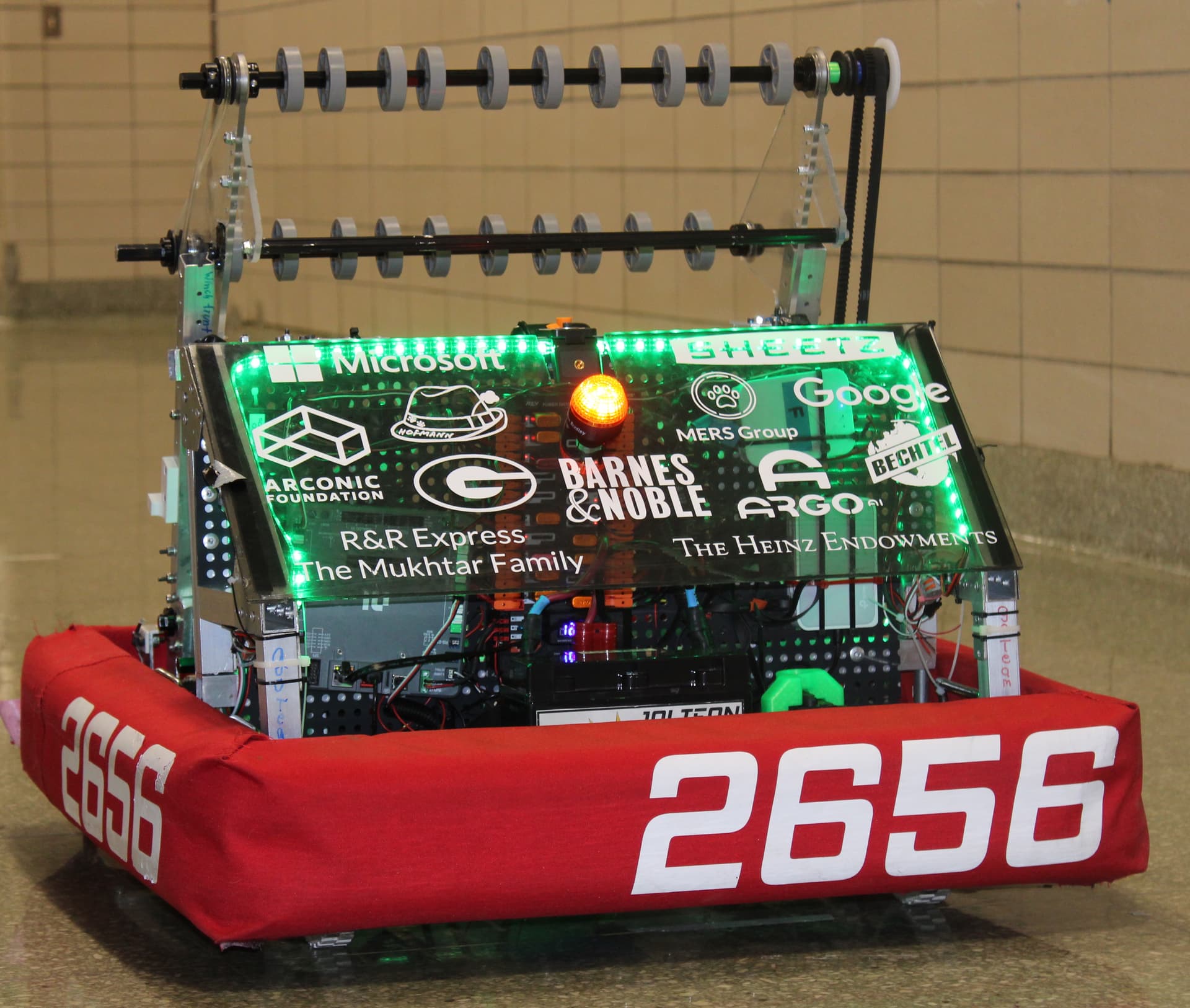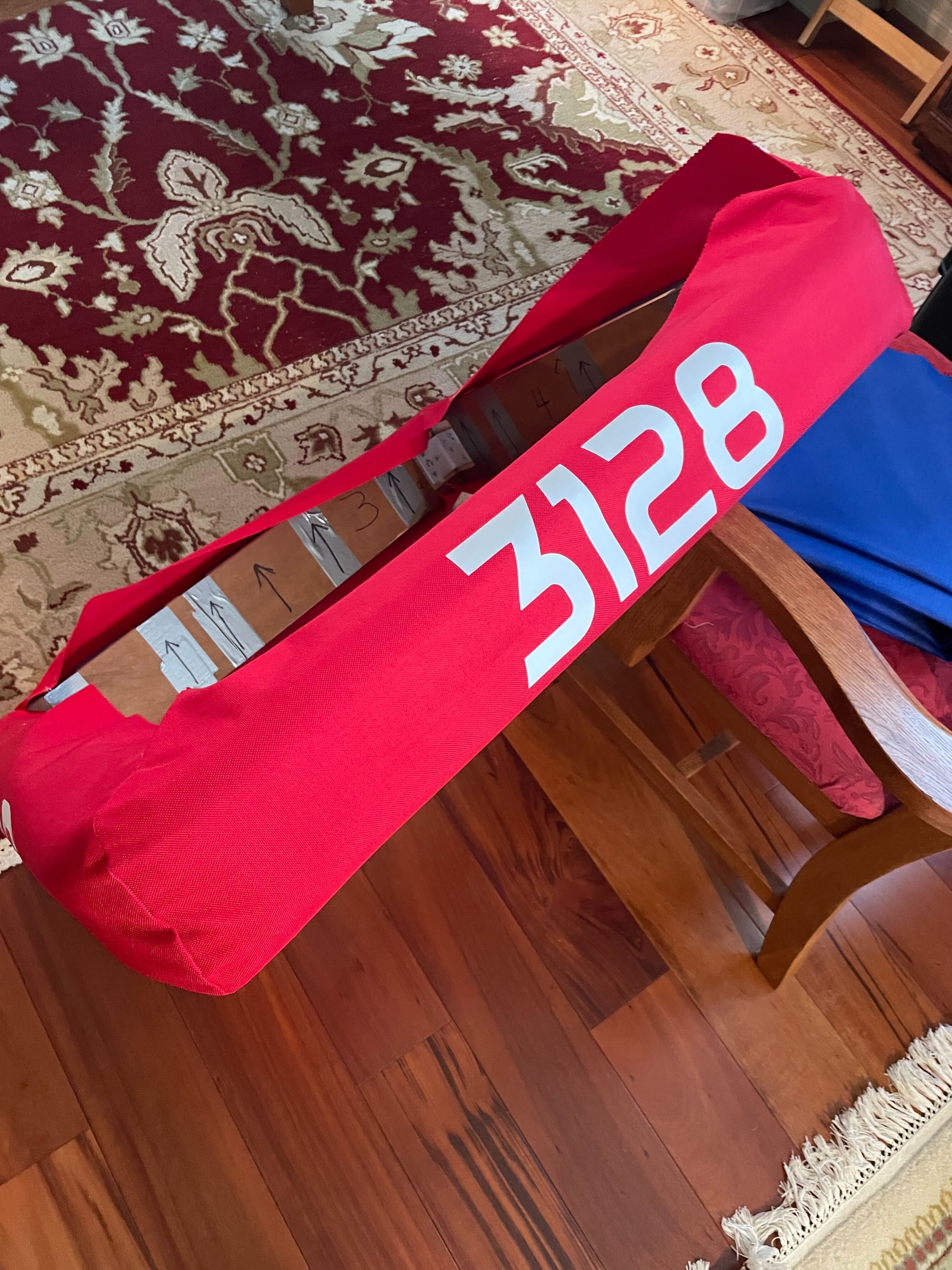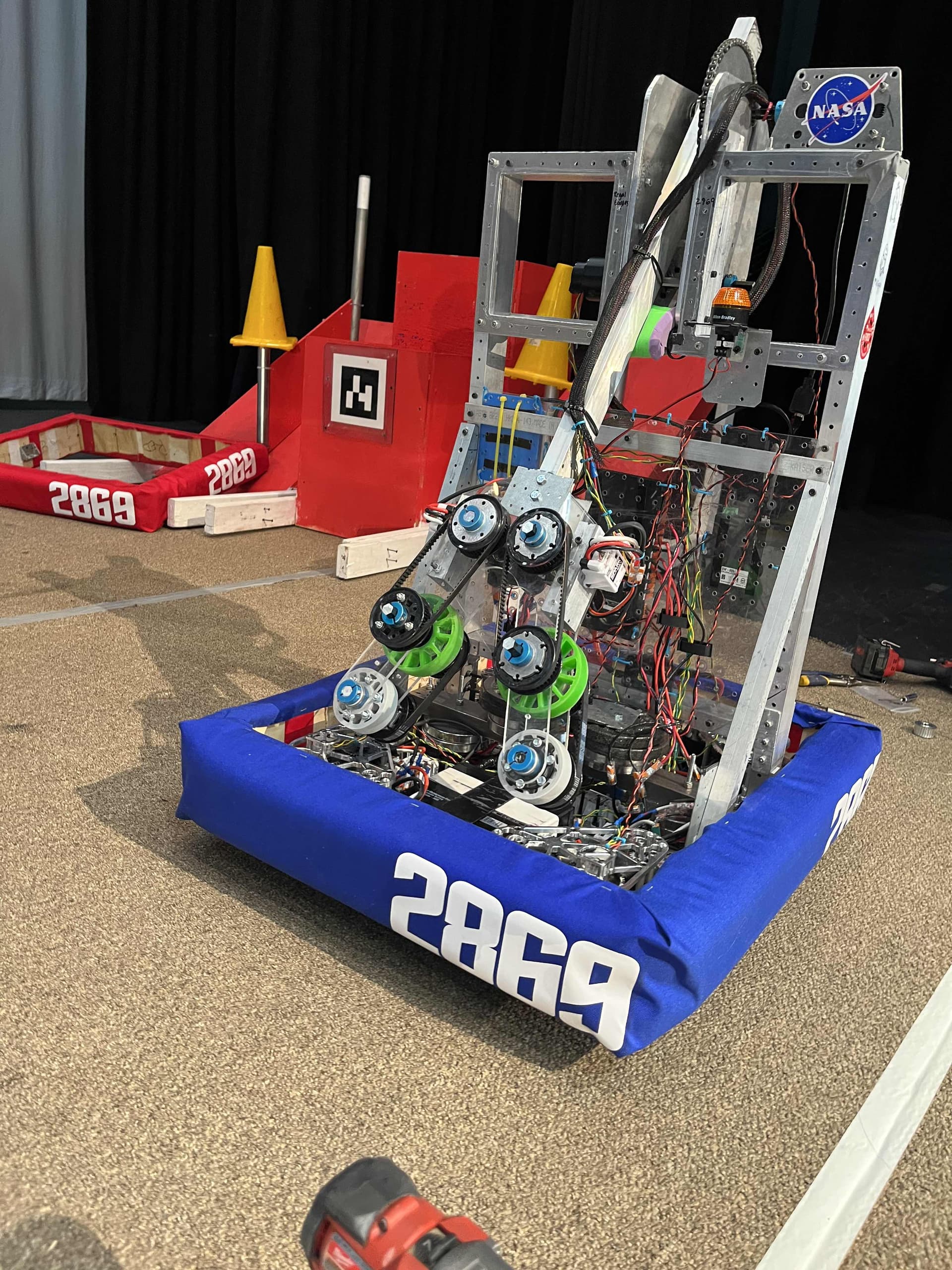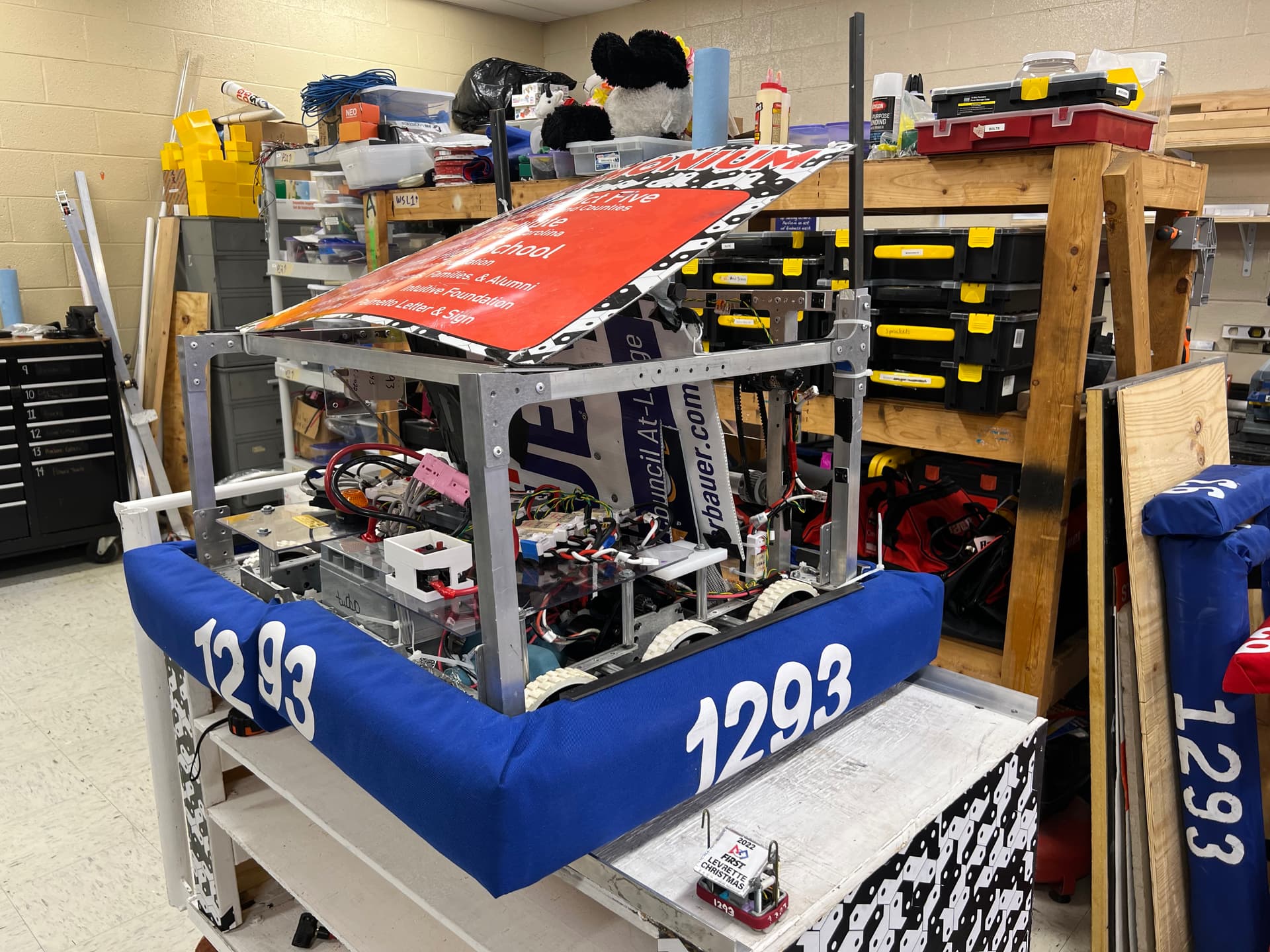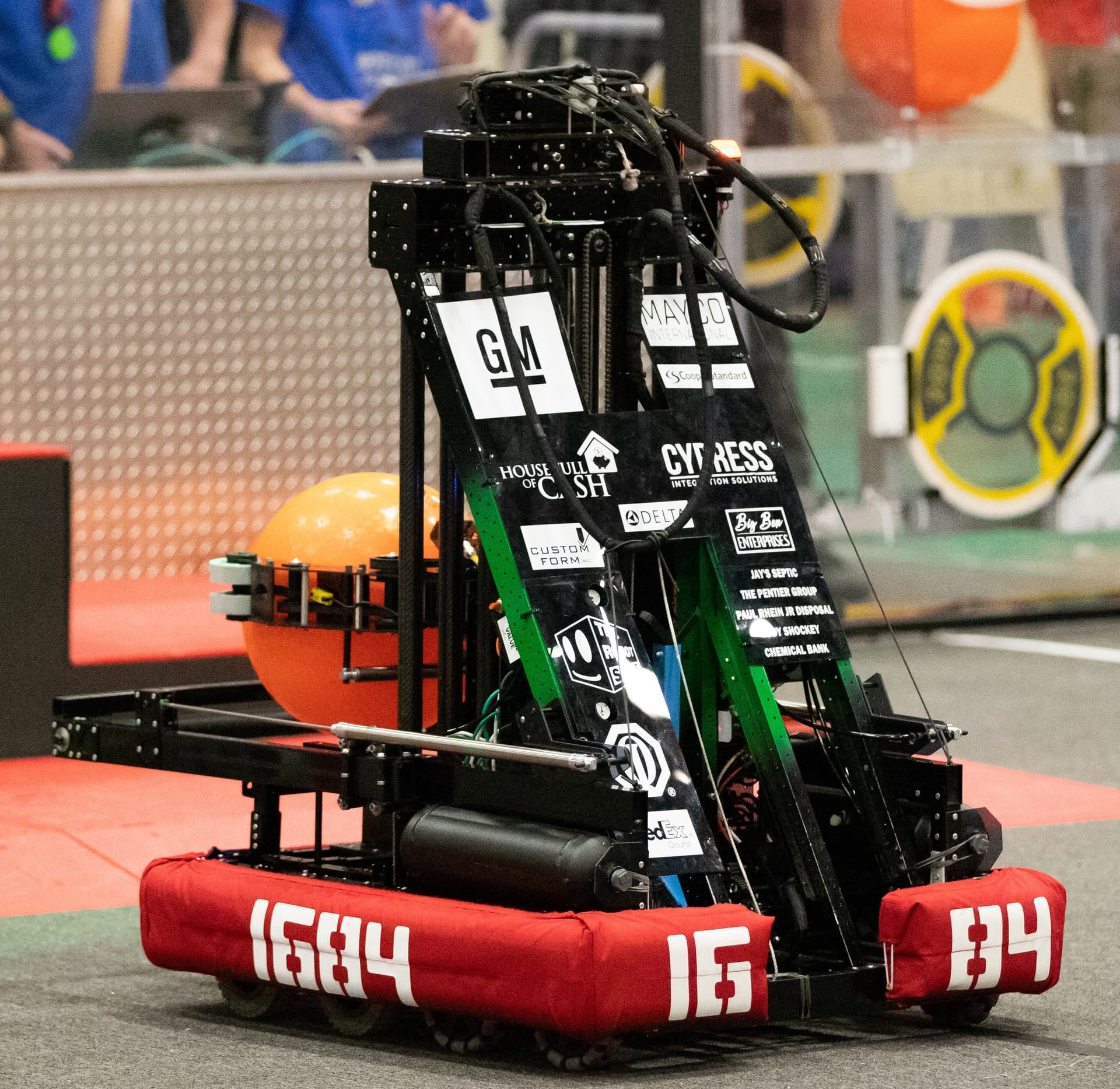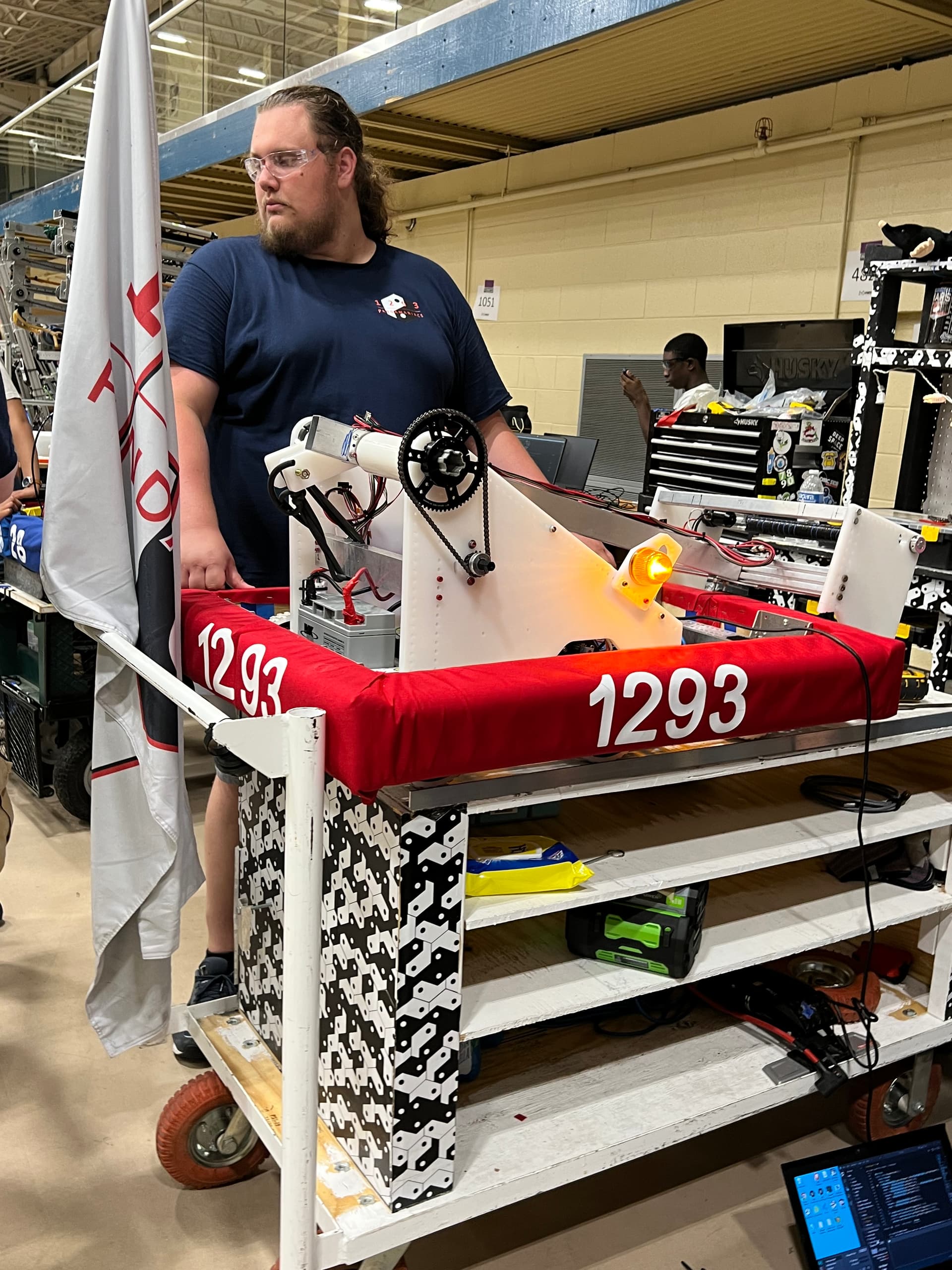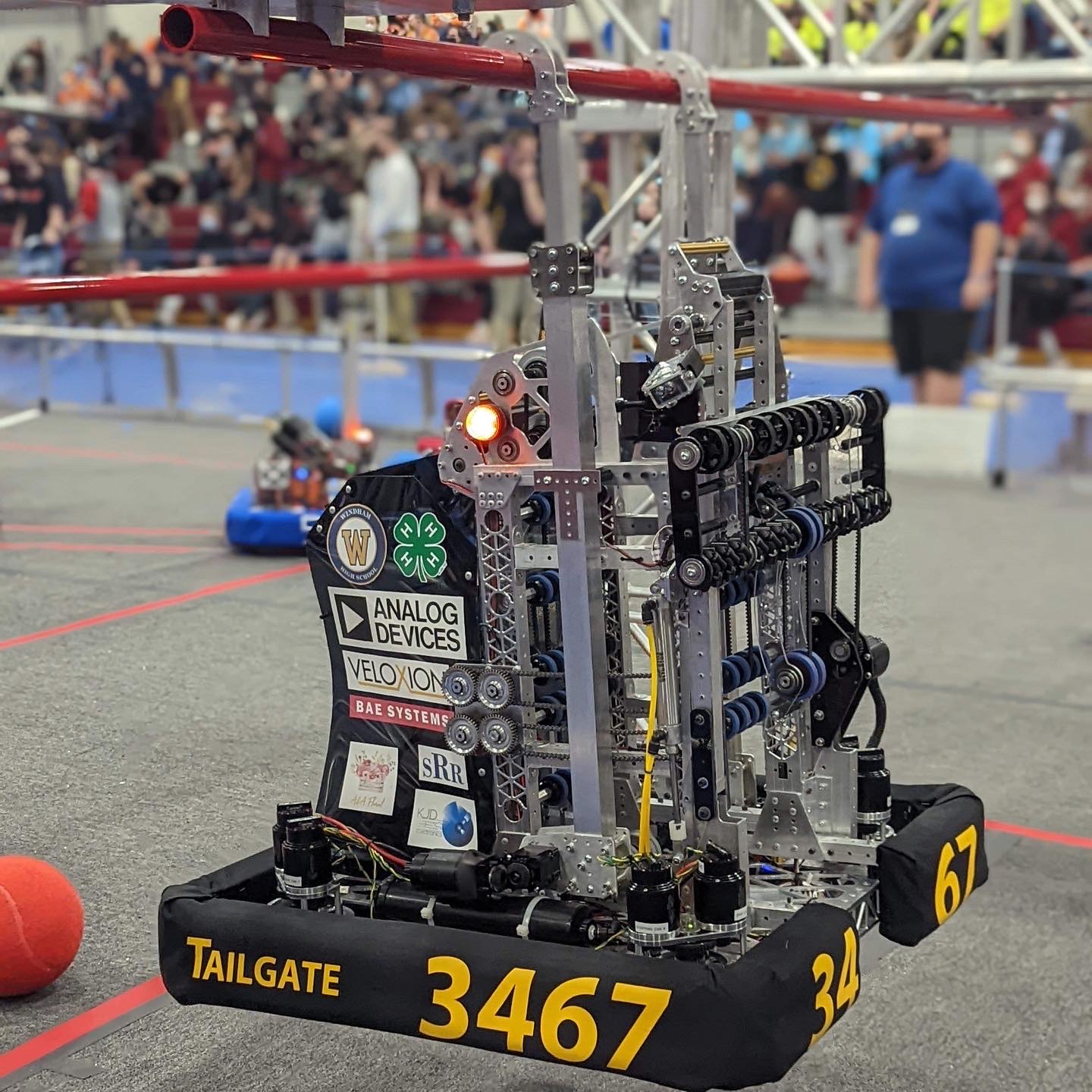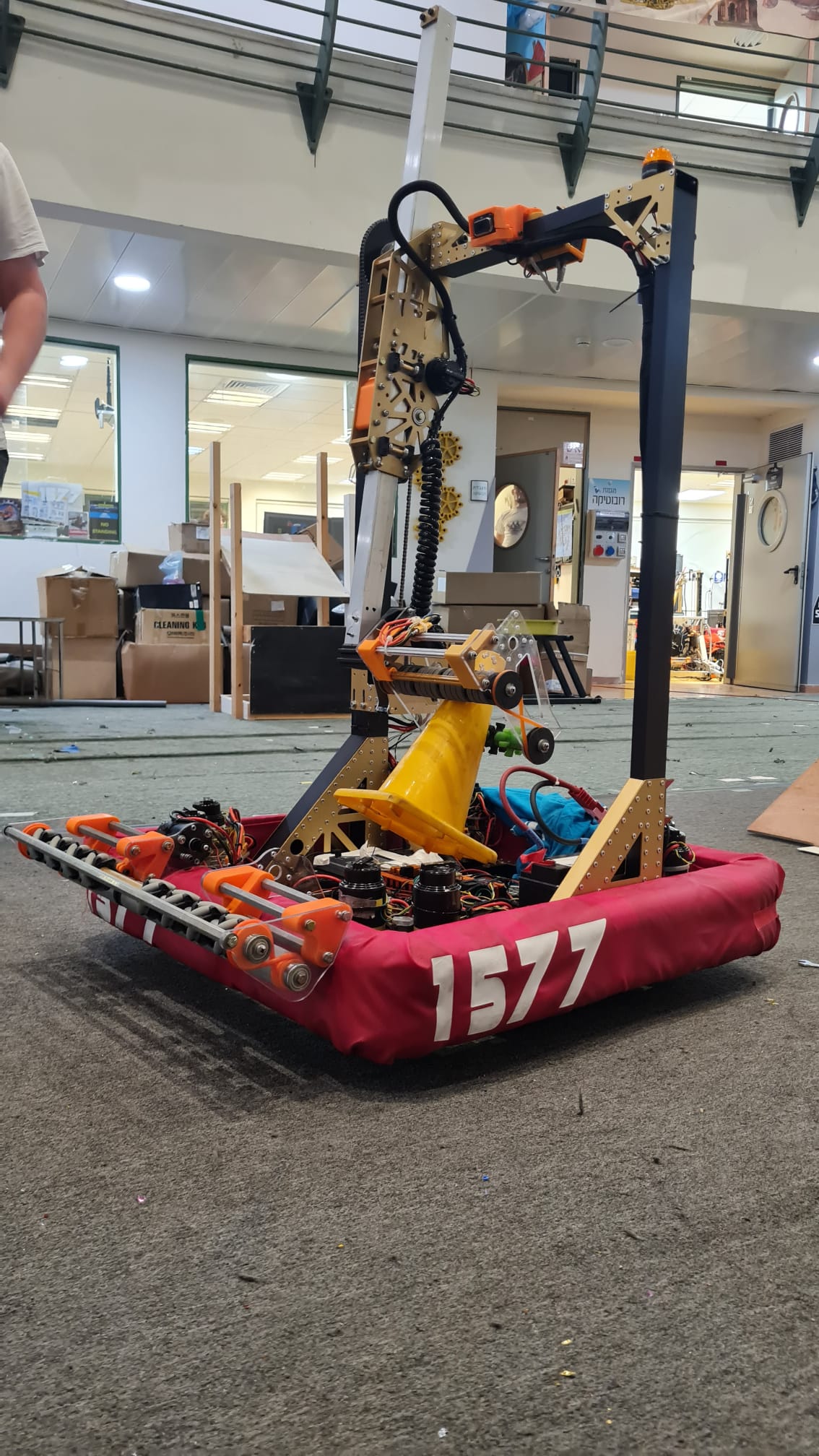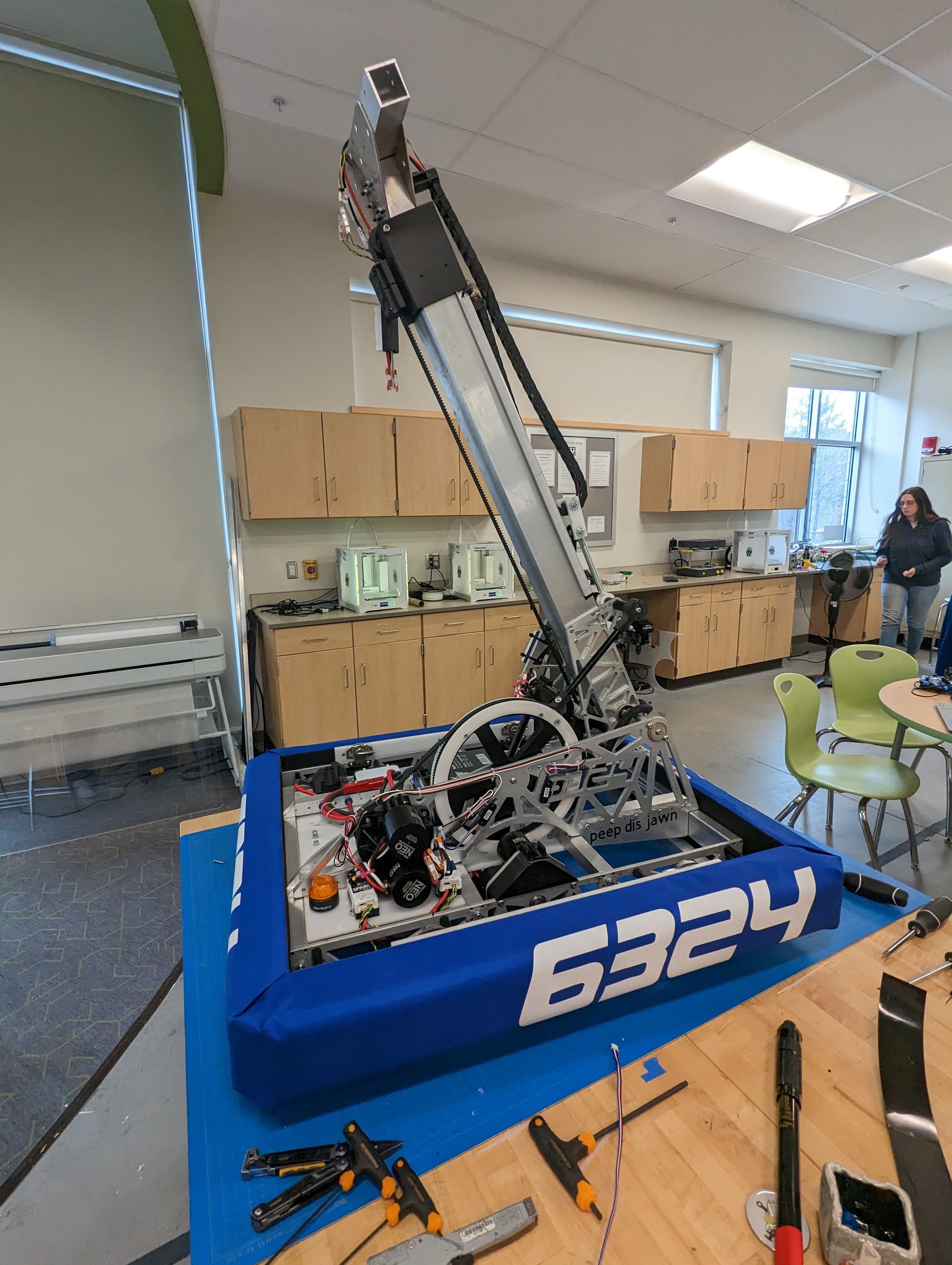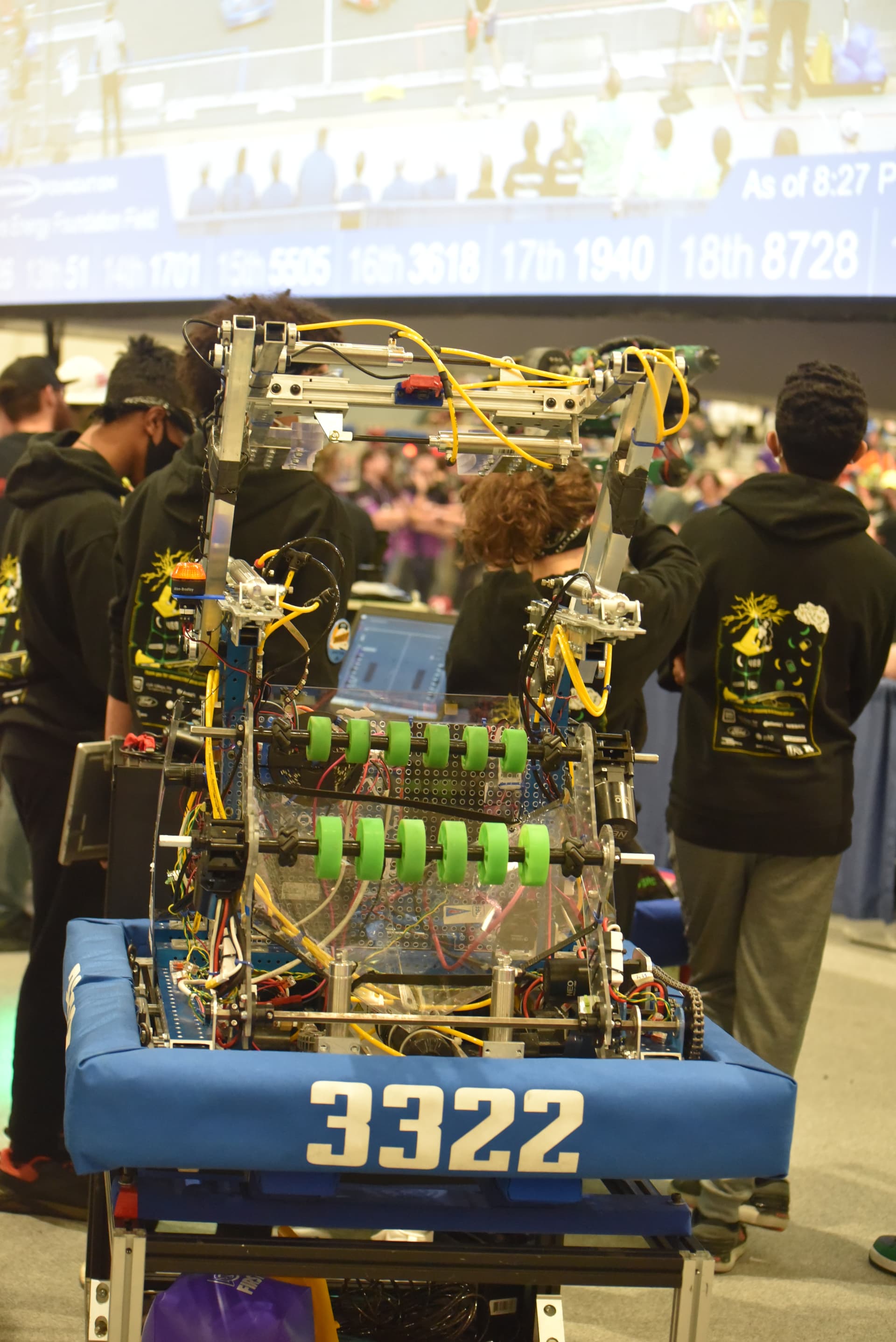
The font we use and the font I would recommend are not the same font. For nearly our entire existence we’ve used a font named Boink LET:
It’s easily visible and pretty much a defining trait for our team by now.
The font I would recommend is any non-serif font that meets the requirements of this past season, so unbroken characters with a stroke width of at least 1/2".
We had someone make our numbers this year and last year for us to heat press on, so I don’t know what exactly they used. Looks like a variation of Arial that I can’t clock, like Arial Bold but with more rounded corners.
2815 and 4901 used variations of ITC Machine for most of my time with them, driven by trying to ape the stylings of the Gamecocks’ athletics department of the time. (Garnet Squadron’s was lightly customized at the 4 and used a completely custom 0, which I’d edit further if they were still active to remove the inner stroke to remove any doubt that it’s a numeral and not “a logo”.)
Honestly, find something that works with your team’s style and run with it.
We’ve been using the same font for a couple of years now, mostly because it’s actually one of the official branding fonts of FIRST, partially because of its utterly appropriate name, and partially because it’s just a great font for bumper numbers: Roboto. We use it in its bold, italic form to get a solid but kind of racy look to the numbers. Since we cut them on a vinyl cutter from insignia cloth, we can apply them as a group to the bumpers and get a perfect alignment and spacing. We think they look great and they’re certainly easy to read for refs and announcers. Here’s this season’s robot, Charles, with these numbers:
Years ago we used some variant of the Twitch font. It was awkward.
I looked for a font with the “open top” 4. Personally don’t like the closed 4.
Found this: SF Transrobotics Font | dafont.com
Use it on our shirts, bumpers, banners, etc. May have changed height of numbers for bumpers, but like the look.
We use a modified custom font “Bauer” - it’s based on the logo for the hockey company. Our version is modified to be correctly kerned for our team name and numbers.
We’ve used Hemi Head Bold-Italic as our main font since 2011 (I don’t believe we had any specific font in 2010). We use it as our main logo font on our shirts, promotional/media items, our bumpers, etc.
We normally embroider on the letters, but this year we decided to use vinyl and heat press them on, (something that’d become very handy later in the season).
We used to use whatever stickers we bought, but now we have switched to Edge of the Galaxy, the font on our shirts, and other branding.
We tried our hardest to match 1114s font but wanted something easily accessible so we eventually settled on Roboto Black Italicized.
If your number has a lot of 1s and 4s I highly recommend:
In line with our Rainforest branding, we purchased Jungle Kids font and use the bold and italicized numbers for our bumpers.
Braille didn’t make the cut…
…and AprilTags was a hard sell…
…but we have used “Impact” (a mac font?) a few years.
So cool to see another team using Hemi Head (Bold / Italic)! We discovered it a few years ago on dafont.com while searching for a new set of bumper numbers. We also use it on the back of our shirts. It’s so clean!
We have been using a custom font which is basically our logo as the number is a part of our teams logo